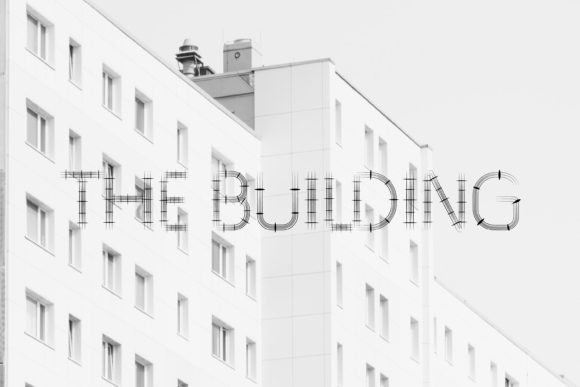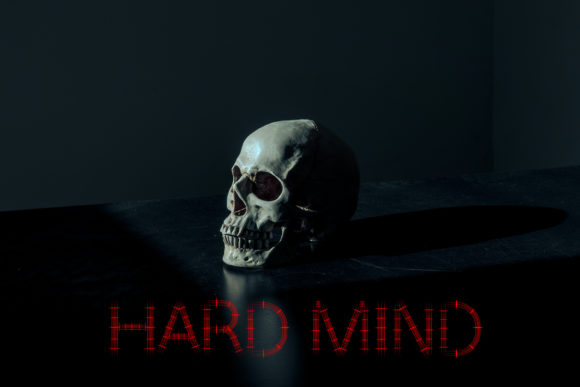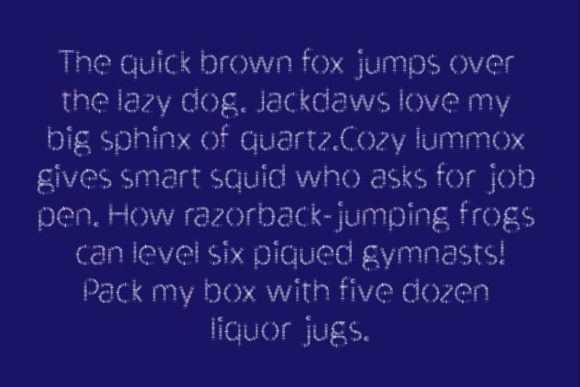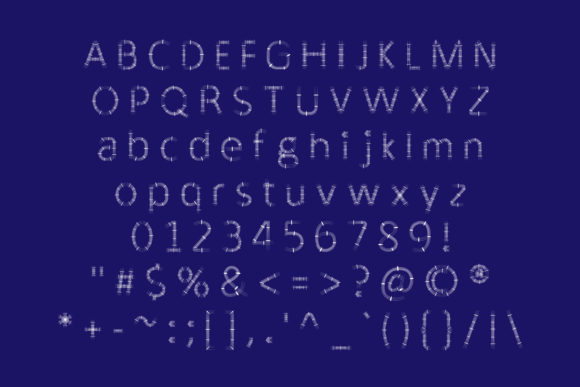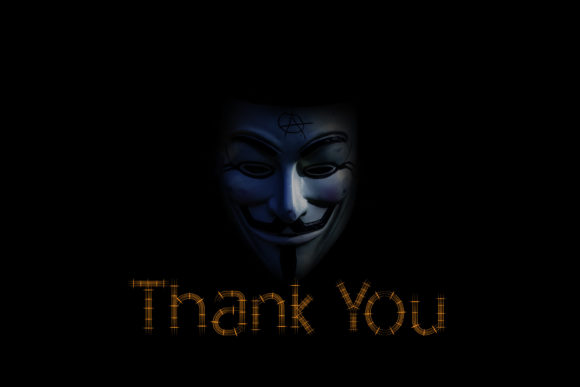
Introduction to Ironidha Font
Ironidha is an incredibly cool and uniquely designed decorative font.
It looks stunning on any poster flyer or print Use this font for your designs and explore its endless possibilities.